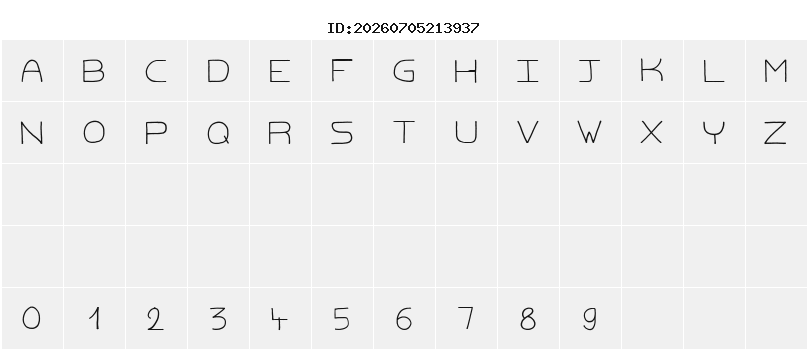
• Font Name: Dirty Macadam
• Designer: dcoxy Medina Gregory
• Manufacturer: dcoxy Medina Gregory
About Dirty Macadam.ttf
Dirty Macadam.ttf is a modern, elegant sans-serif font designed for ultimate readability and visual harmony. Perfect for branding, headlines, web design, and print materials.